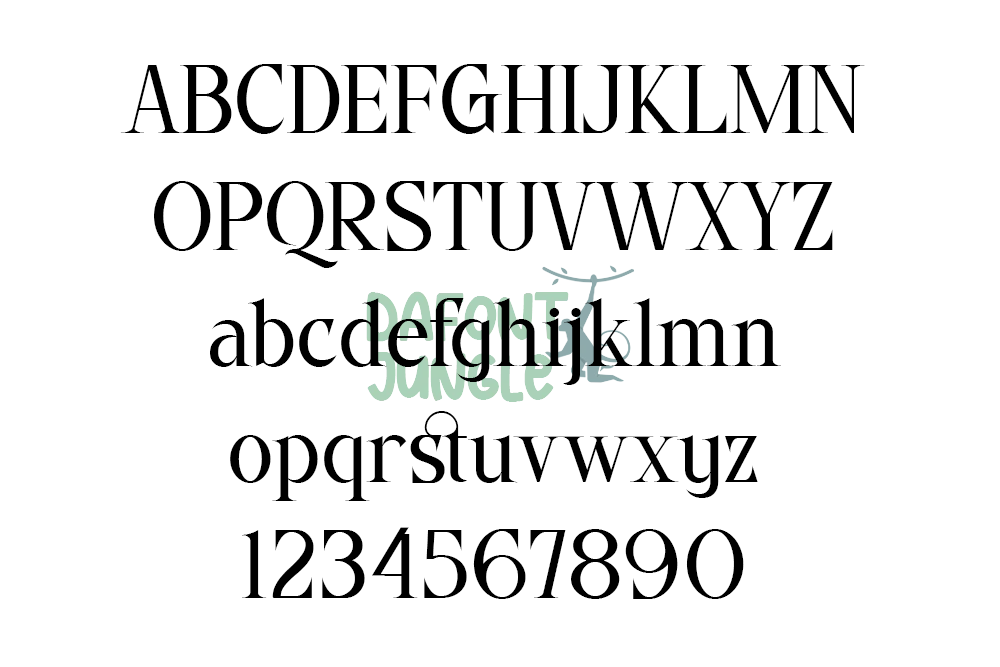
Quartist Serif – Calm and Versatile Serif Font
Quartist Serif is a multipurpose serif font designed for display use, body text, and branding. It creates a relaxed, calm tone while still delivering clear and expressive messages. Whether you’re designing a logo, writing editorial content, or building a visual identity, Quartist adapts beautifully across print and digital formats.